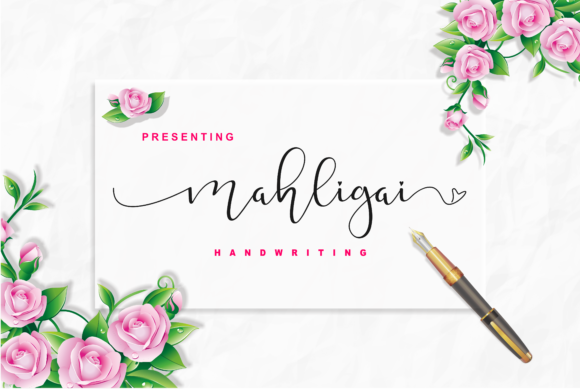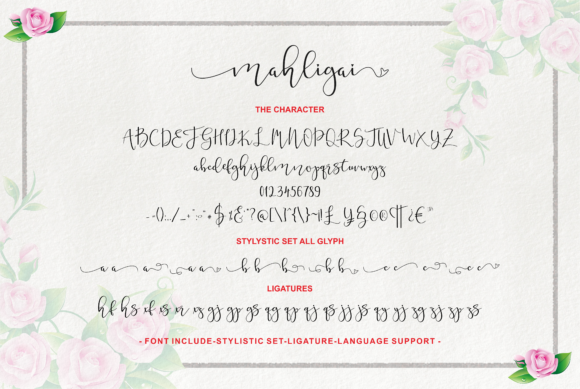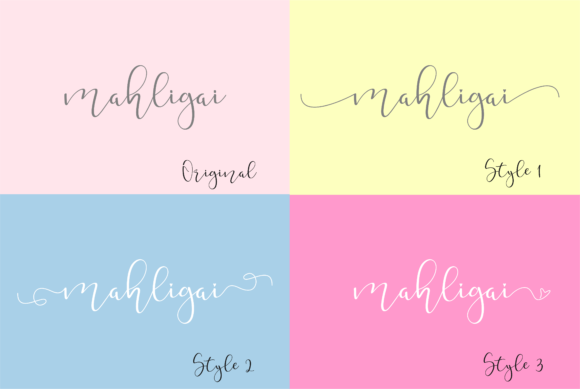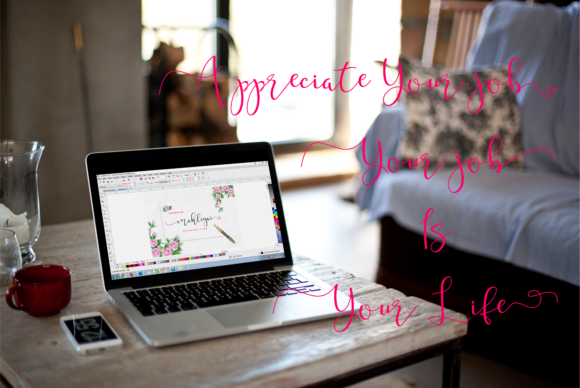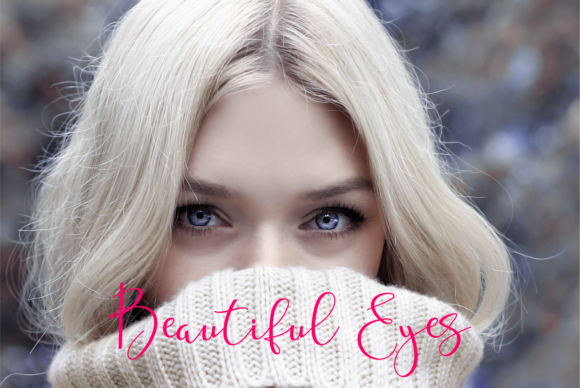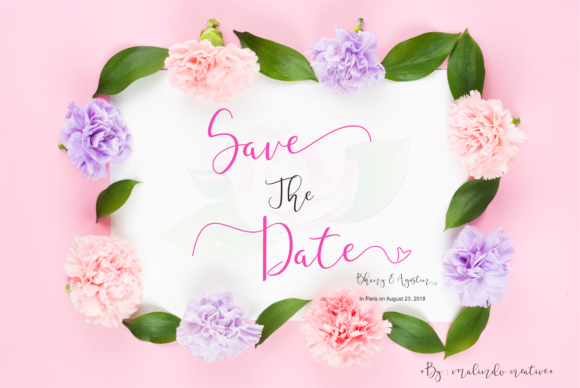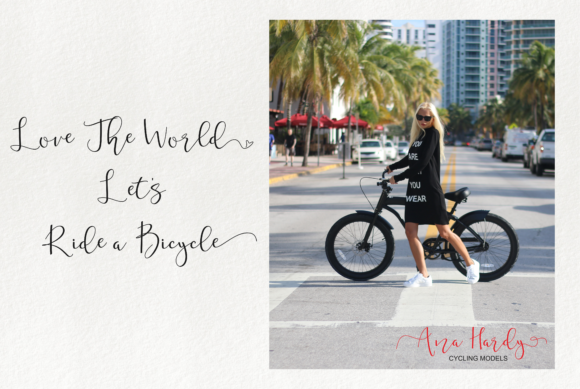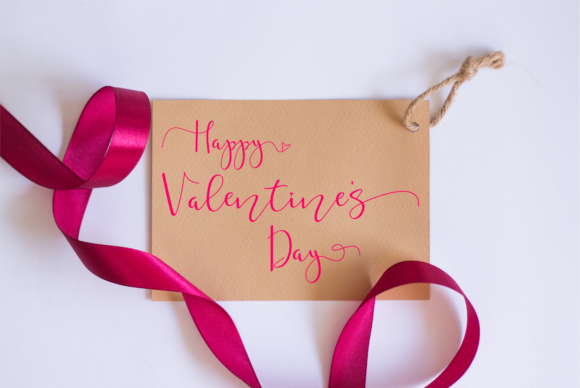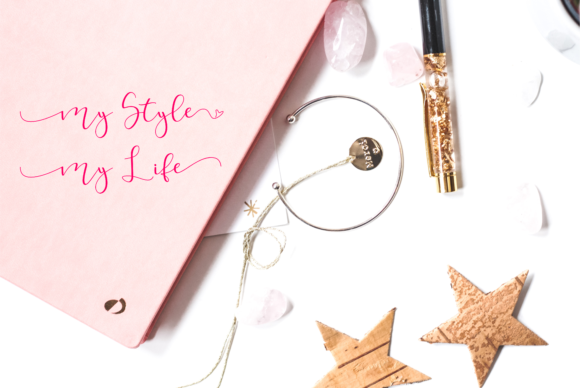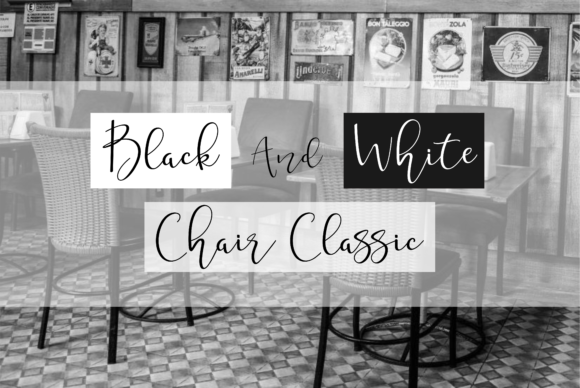
Mahligai Font
About Mahligai Font
Mahligai is a beautiful handwritten font. It has a irregular baseline and a elegant look. Mahligai is created to fulfill all designing needs.